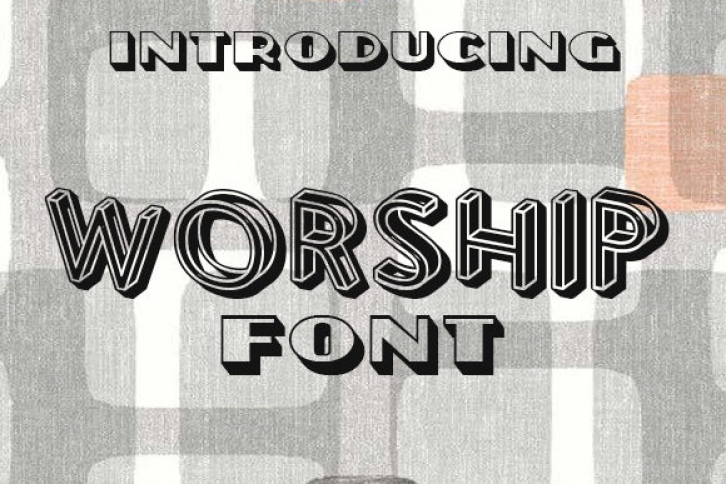
Worship is a spectacular 3D display font! Its linear style makes it incredibly versatile, allowing it to become the perfect fit for a wide variety of projects.